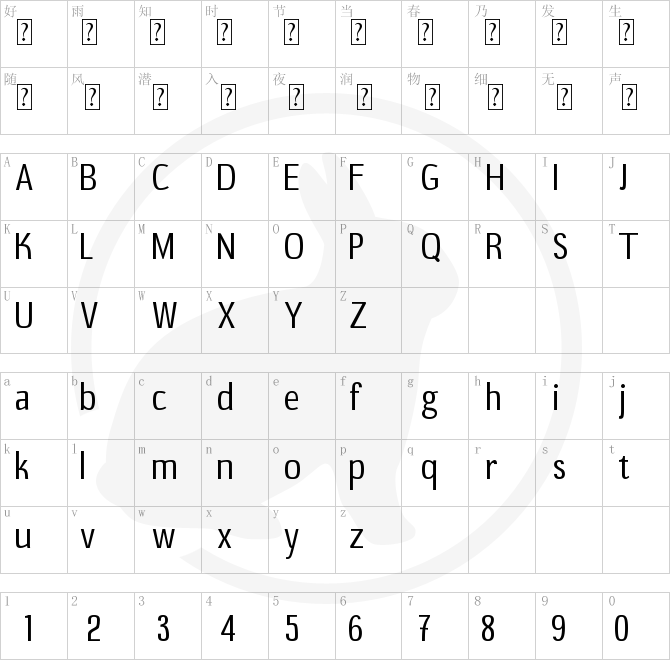
- Font Name:B20 Sans
B20-Sans.ttf is a very beautiful artistic font, B20-Sans.ttf is widely used in the design and printing of various books and pictures,B20-Sans.ttf has a strong visual impact,B20-Sans.ttf is a commonly used font in newspapers, magazines and books, and is used in posters, e-commerce Poster design, store design, logo design, font design and other fields.B20-Sans.